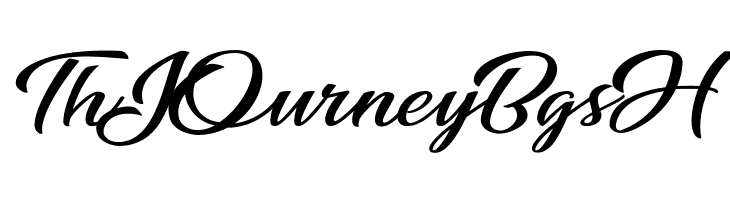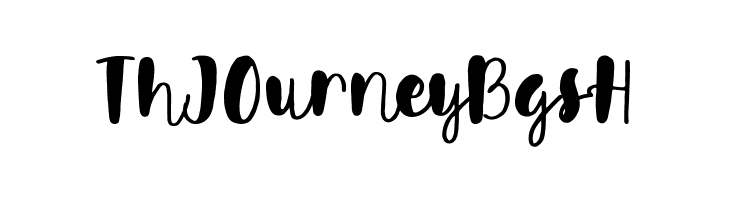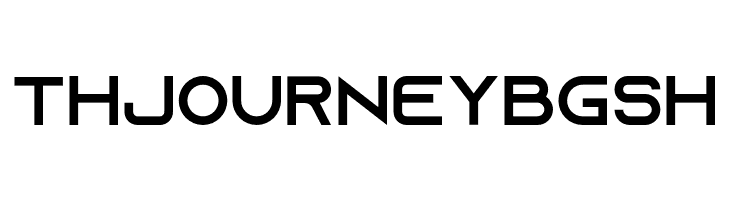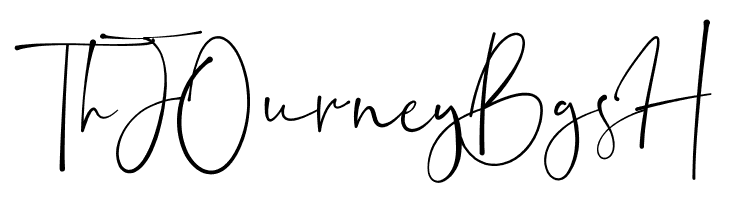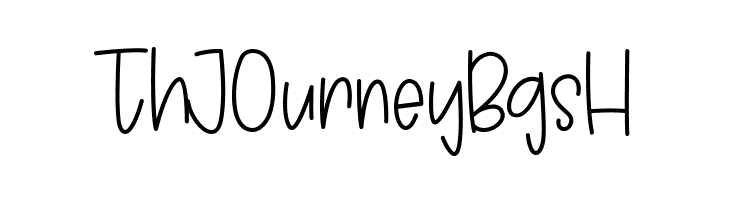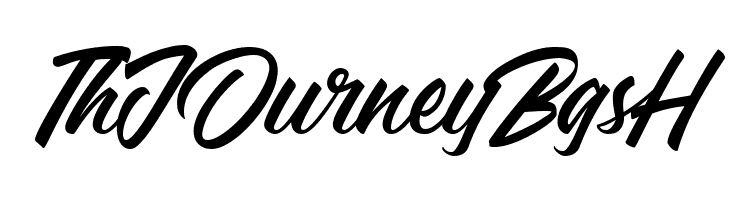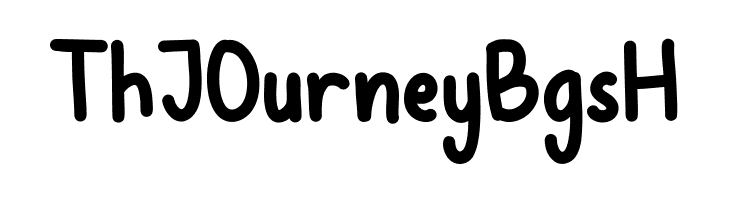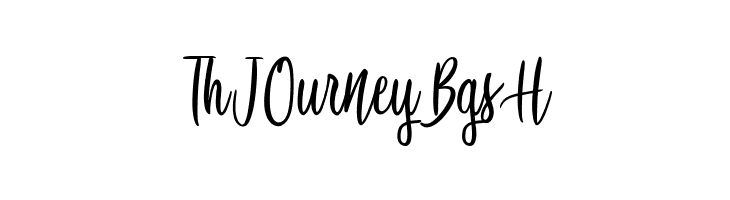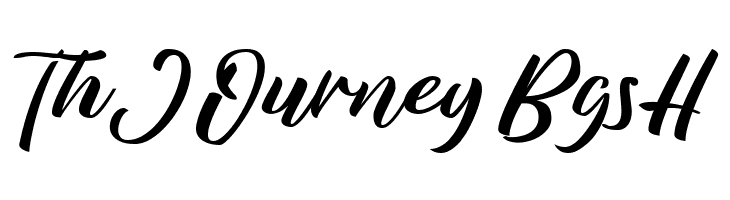
An elegant, flowing script font with thin strokes and graceful curves.
A playful and elegant script font with fluid, interconnected letterforms.
A bold, dynamic script font with a strong, handwritten style.
A bold, dynamic script font with flowing, cursive letterforms.
A bold, geometric font with a strong, industrial aesthetic.
A bold, geometric font with strong, angular lines and a modern, industrial feel.
A bold, italic typeface with a dynamic, angular design.
A bold, italicized font with angular, geometric characters.
A dynamic, calligraphic font with bold strokes and elegant curves.
A dynamic script font with elegant curves and sharp edges, perfect for creative projects.
A bold, geometric font with a hollow interior and futuristic style.
A bold, geometric font with angular lines and cut-out sections.
A dynamic, expressive handwritten font with fluid cursive letterforms.
A versatile font with both decorative and bold styles, perfect for creative and impactful designs.
An elegant script font with flowing, interconnected letters and a classic calligraphic style.
A bold, playful font with rounded edges and a hand-drawn feel.
A bold, decorative font with tall, narrow letters and distinctive shadowing.
A tall, narrow font with elongated, smooth characters for a modern look.
A bold, handwritten font with a lively and dynamic style.
Elegant handwritten script font.
An elegant script font with flowing, cursive style and intricate swashes.
A bold, brushstroke typeface with an energetic, handcrafted style.
A dynamic brushstroke-inspired font with an artistic and textured appearance.
A bold, brush-style font with dynamic and expressive strokes.
A playful, hand-drawn script font with dynamic strokes and decorative flair.
A bold, brushstroke-style font with an expressive, hand-painted look.
A bold, brush-stroke style font with dynamic, hand-painted letterforms.
An artistic font with bold, expressive brush strokes.
A bold, brushstroke-style font with a dynamic and artistic flair.
A dynamic brushstroke font with an artistic and calligraphic style.
A textured, brush-stroke style font with a rustic, artistic feel.
A playful brush script font with fluid, dynamic strokes and a hand-drawn quality.